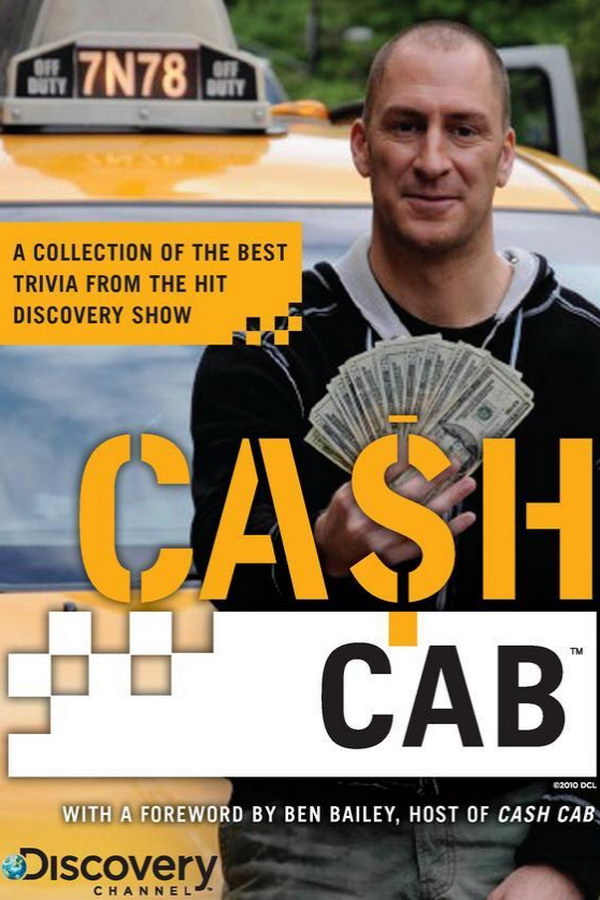
Cash Cab Font
Fonts in UseCash Cab s a game show where unsuspecting passengers enter a taxi in New York City and are quizzed on general knowledge questions to win money as they reach their destination. The show originally aired on the Discovery Channel.
The show's title seems to be influenced by the Monotype Grotesque Black font, designed by Frank Hinman Pierpont, based on the Ideal and William Thorowgood's 1832 "Grotesque" typefaces. Additional information on this font can be found here.